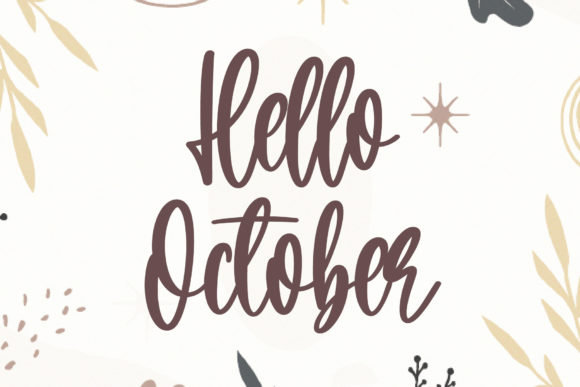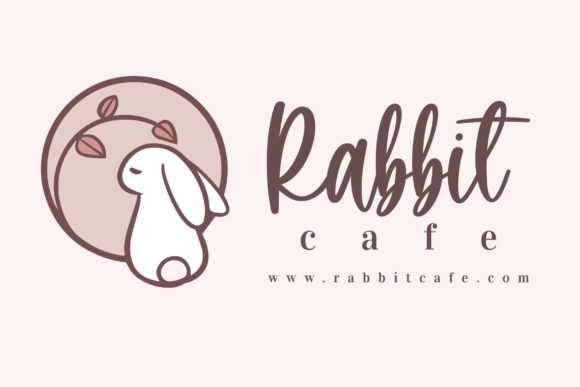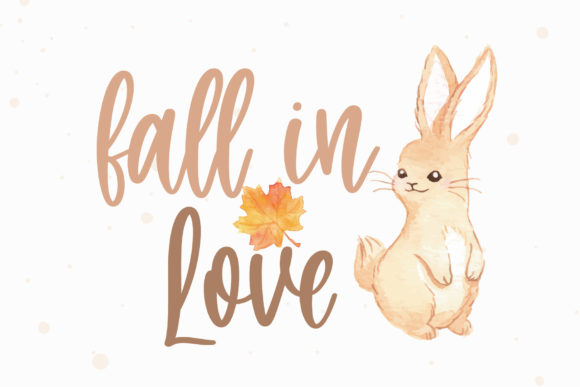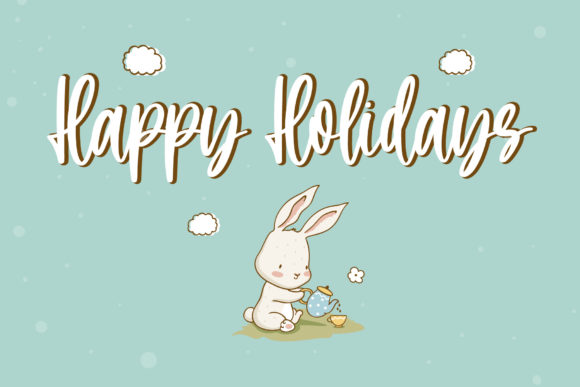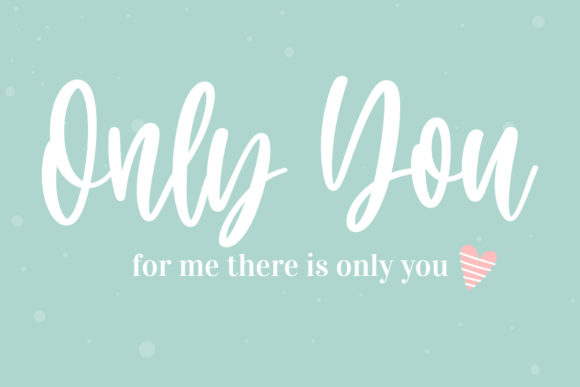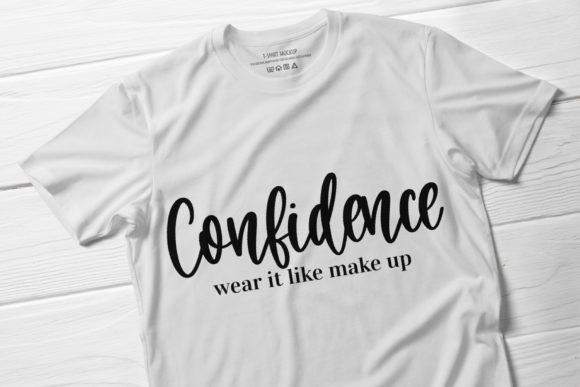
Christmas Fantasy Font: A Delicate and Refined Choice for Your Designs
Are you looking for a font that can add a touch of magic and elegance to your designs? Look no further than the Christmas Fantasy Font. This beautiful font is perfect for creating stunning wedding invitations, thank you cards, quotes, greeting cards, logos, business cards, and more. In this article, we’ll take a closer look at the Christmas Fantasy Font and explore its features, uses, and benefits.
What is Christmas Fantasy Font?
Christmas Fantasy Font is a digital font designed to evoke the feeling of a winter wonderland. It’s a script font with a delicate and refined aesthetic, making it perfect for designs that require a touch of elegance and sophistication. The font features intricate swashes and flourishes that give it a whimsical and festive feel.
Features of Christmas Fantasy Font
The Christmas Fantasy Font has several features that make it a great choice for designers and crafters. Some of its key features include:
- Delicate and refined aesthetic: The font has a beautiful, elegant look that’s perfect for designs that require a touch of sophistication.
- Intricate swashes and flourishes: The font features intricate swashes and flourishes that give it a whimsical and festive feel.
- Script font: The font is a script font, making it perfect for designs that require a personal and elegant touch.
- Customizable: The font is highly customizable, allowing you to adjust the size, color, and style to fit your design needs.
Uses of Christmas Fantasy Font
The Christmas Fantasy Font is a versatile font that can be used for a wide range of designs, including:
- Wedding invitations: The font’s elegant and refined aesthetic makes it perfect for wedding invitations and other wedding-related designs.
- Thank you cards: The font’s delicate and whimsical feel makes it perfect for thank you cards and other greeting cards.
- Quotes and posters: The font’s elegant and refined aesthetic makes it perfect for quotes and posters that require a touch of sophistication.
- Logos and business cards: The font’s customizable and elegant feel makes it perfect for logos and business cards that require a professional and personalized touch.
Benefits of Using Christmas Fantasy Font
There are several benefits to using the Christmas Fantasy Font in your designs. Some of the key benefits include:
- Elegance and sophistication: The font adds a touch of elegance and sophistication to your designs, making them stand out from the crowd.
- Customizability: The font is highly customizable, allowing you to adjust the size, color, and style to fit your design needs.
- Versatility: The font can be used for a wide range of designs, from wedding invitations to logos and business cards.
- Festive feel: The font’s whimsical and festive feel makes it perfect for holiday-themed designs and other festive projects.
Tips for Using Christmas Fantasy Font
Here are a few tips for using the Christmas Fantasy Font in your designs:
- Use it sparingly: The font’s intricate swashes and flourishes can be overwhelming if used too much. Use it sparingly to add a touch of elegance and sophistication to your designs.
- Experiment with colors: The font looks great in a variety of colors, from traditional holiday colors like red and green to more modern colors like gold and silver.
- Pair it with other fonts: The font pairs well with other fonts, including serif and sans-serif fonts. Experiment with different font combinations to find the perfect look for your design.
The Christmas Fantasy Font is a beautiful and versatile font that’s perfect for designers and crafters looking to add a touch of elegance and sophistication to their designs. With its delicate and refined aesthetic, intricate swashes and flourishes, and customizable features, this font is sure to become a favorite in your design arsenal. Whether you’re creating wedding invitations, thank you cards, quotes, logos, or business cards, the Christmas Fantasy Font is a great choice.